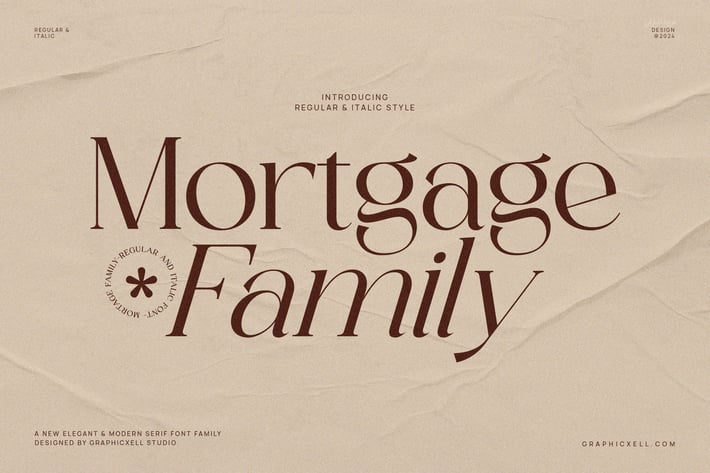
Mortgage Family Elegant Serif Font Text
Mortgage Family is a serif font family with a modern style. Like other serif fonts, Mortgage Family has a high readability level. The font still looks very sharp, although its size is small. Therefore, Mortgage Family, you can read long paragraph text like an article that uses this font type.
Mortgage Family is not only a delicate font that ensures we read well and clearly but also brings us a classy and new modern appearance. You can feel an elegant and beautiful stroke starting from the italic style.
The regular font, like the italic feature, is so good and looks artistic with its various thicknesses on every curve of the lines.
Last but not least, the Mortgage Family font is undoubtedly well-used for multiform business. Let's say you can use it for layout design, logo font, magazine, headline, branding any business, and it is also good for quote font.